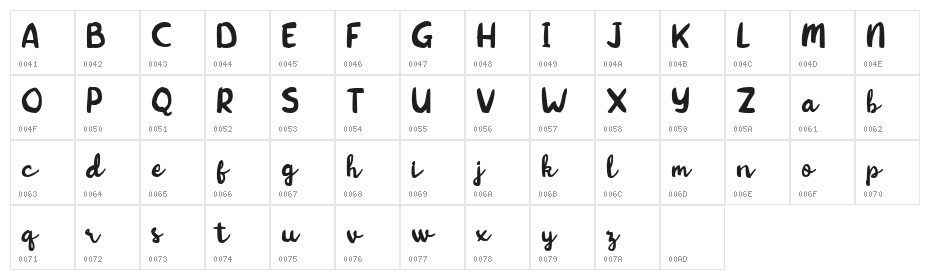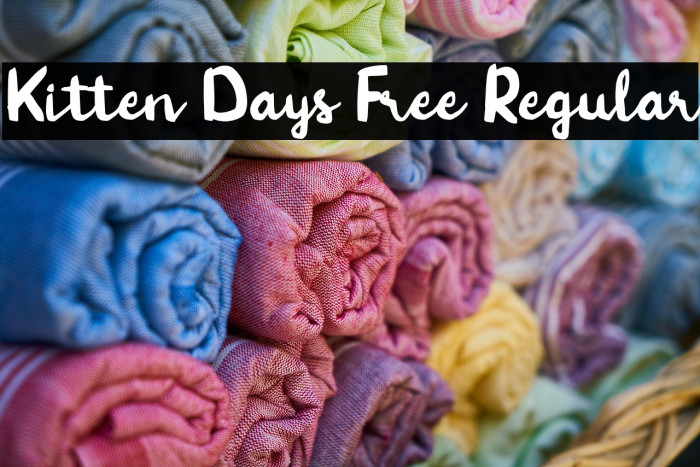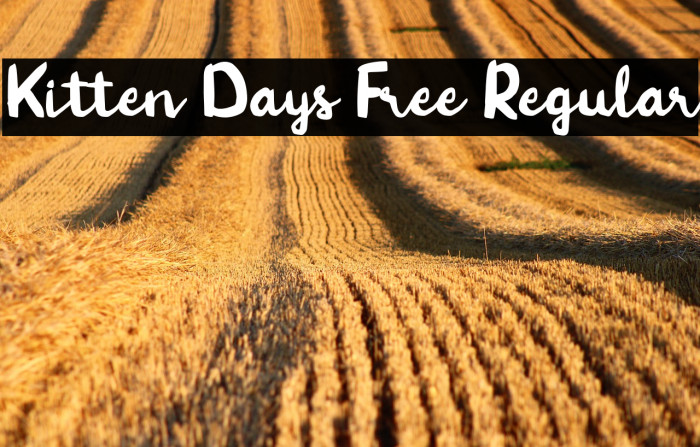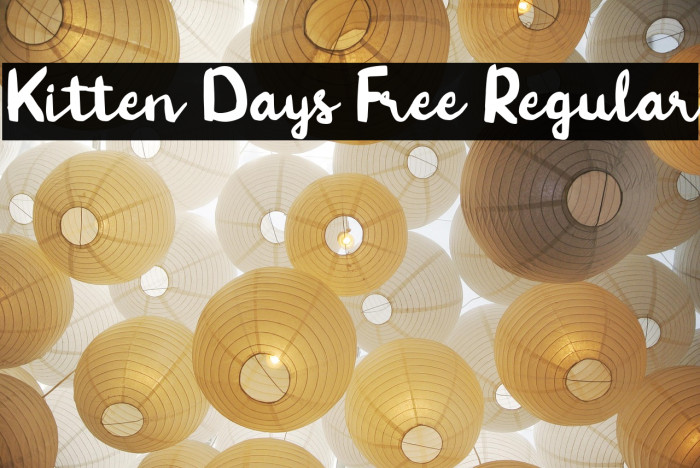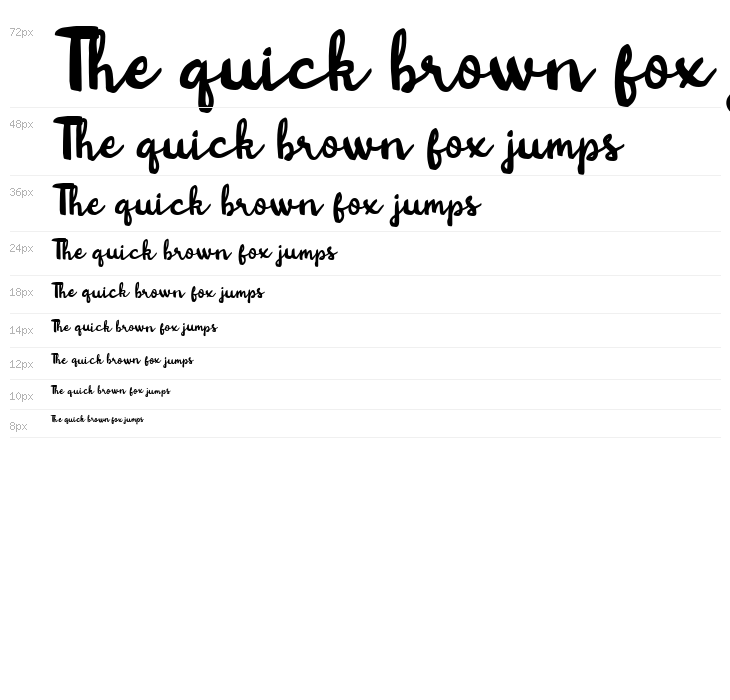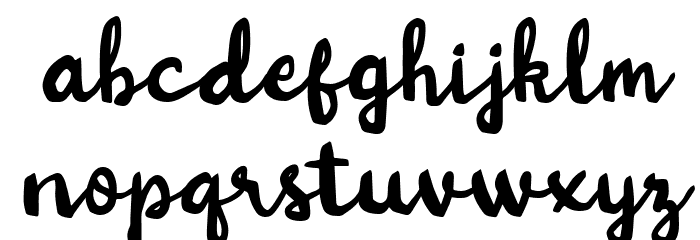
Kitten Days Free Regular Font
Kitten Days Free Regular Description
This playful and whimsical font features a handwritten style with a casual, friendly appearance. The letters are bold and rounded, giving them a soft and approachable feel. The uppercase and lowercase characters maintain a consistent flow, with slightly irregular strokes that add to the charm and personality of the font. The numbers and special characters are designed to match the overall style, making it versatile for various uses. Its unique character makes it ideal for projects that require a touch of fun and creativity.
| Proposed Projects | Ideal for children's books, playful branding, greeting cards, and creative social media graphics. |